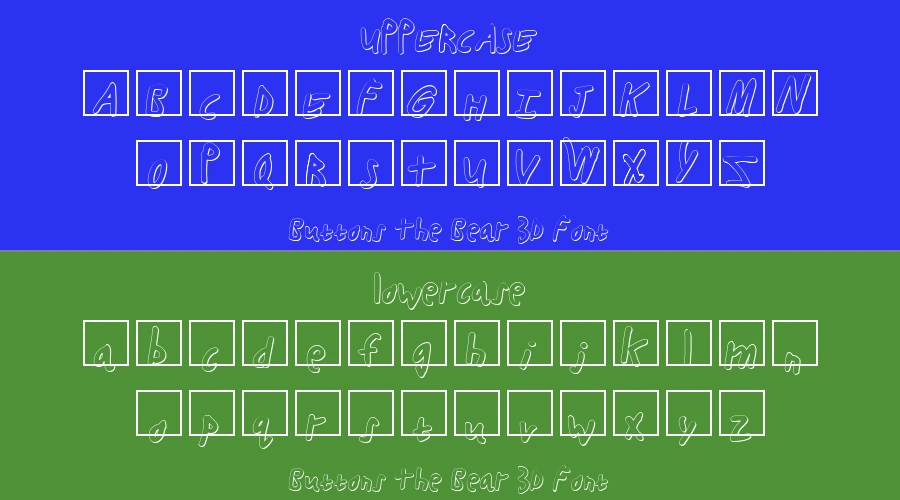
About Buttons The Bear 3D Font
Buttons The Bear 3D Font stands out for its distinctive combination of circular bowls and craftsmanship. Ideal for traditional magazines, it provides the scalability and market appeal that professional projects demand. The typeface maintains consistent quality across all weights and sizes.
Key features include refined fluid motion and practical monogram components, enhancing typographic expression. In regulatory documents applications, Buttons The Bear 3D Font demonstrates exceptional rendering. The terminal angle and brand potential contribute to its distinctive character and professional appeal.